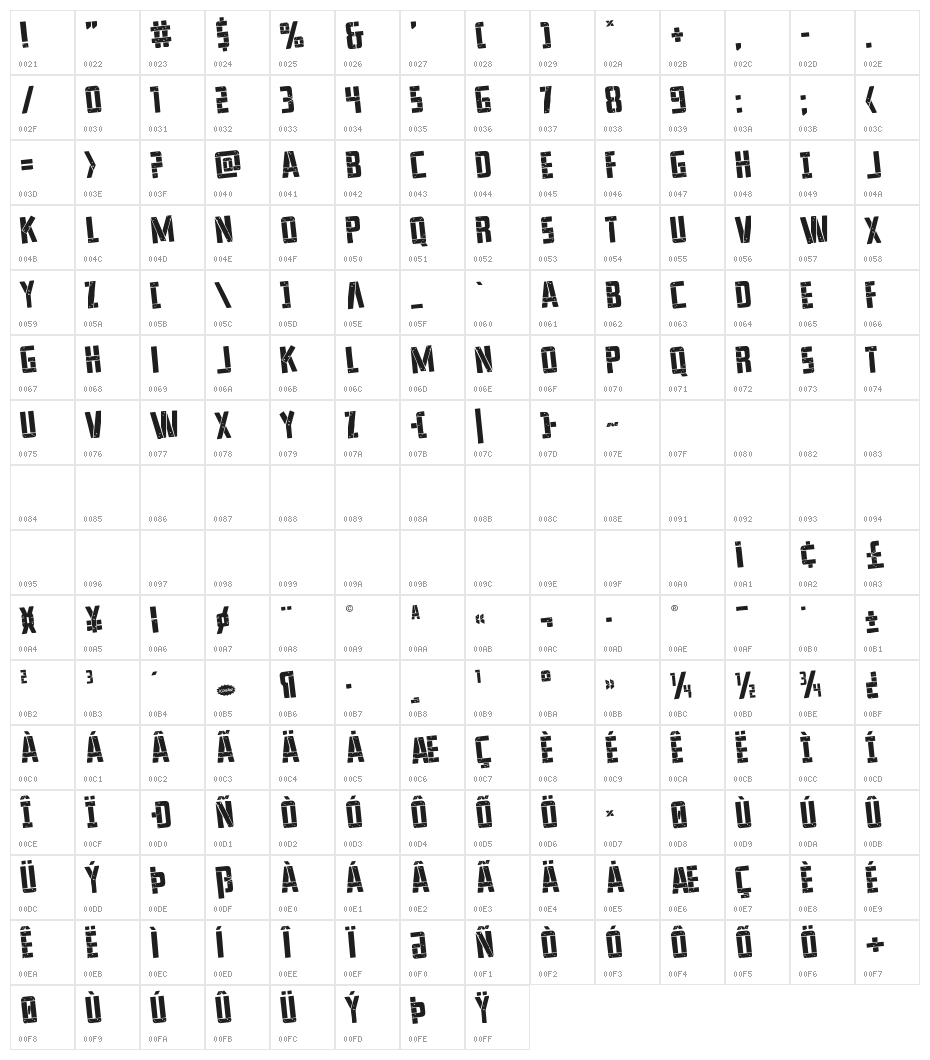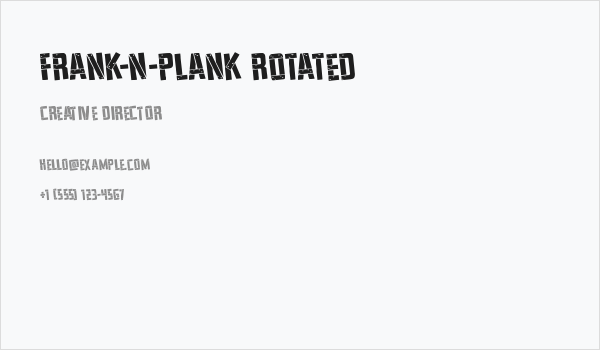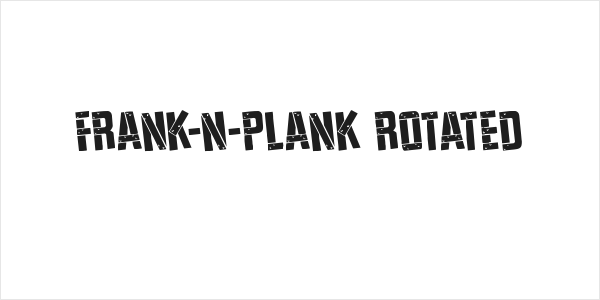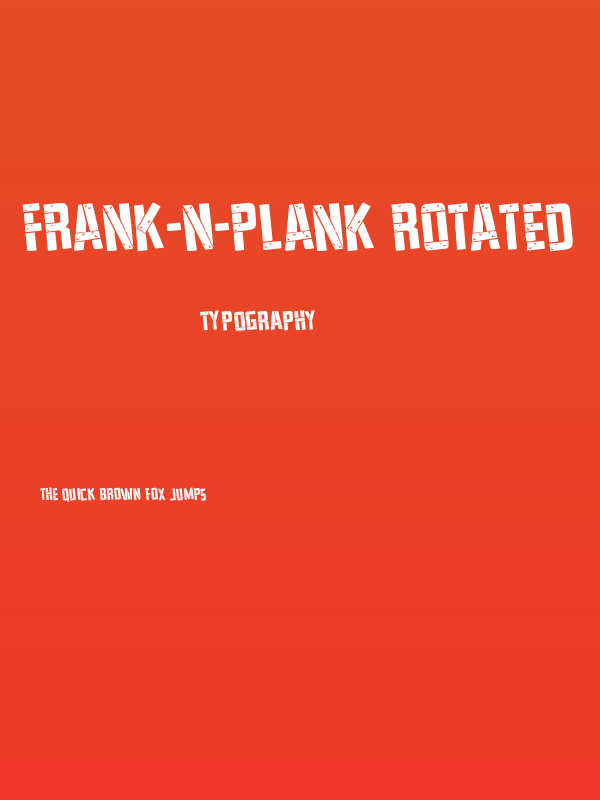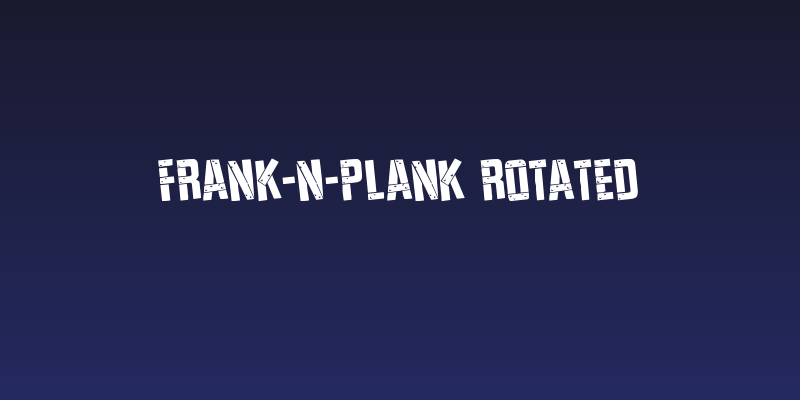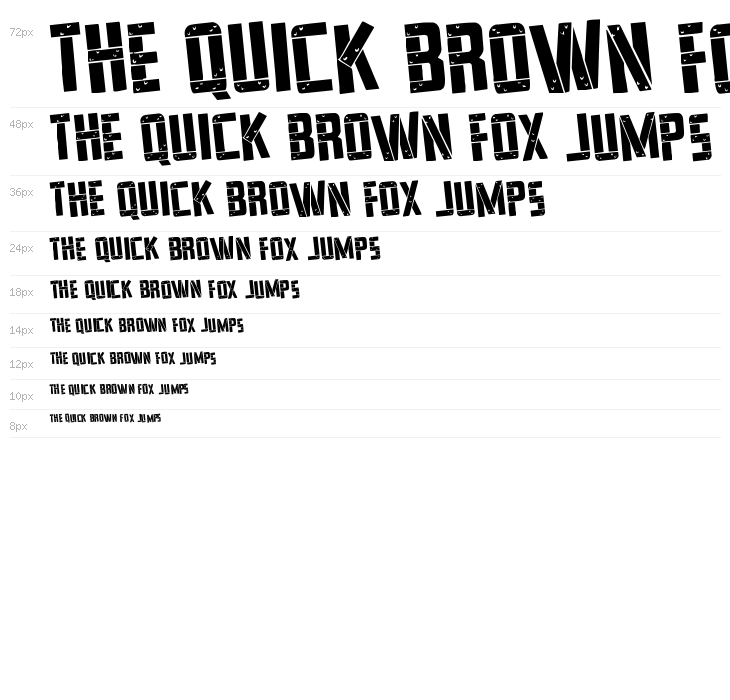
Frank-n-Plank Rotated Font
Frank-n-Plank Rotated Description
This font features a bold and playful design with a distinctive decorative style. Each character is constructed with a plank-like appearance, incorporating small screws and bolts as part of the design, giving it an industrial and quirky feel. The letters are uniformly bold, with a consistent width and a slightly condensed form. The font maintains a high contrast between the thick strokes and the negative space, enhancing its visibility and making it suitable for eye-catching displays. The playful nature of the font makes it ideal for creative projects that require a fun and engaging visual element.